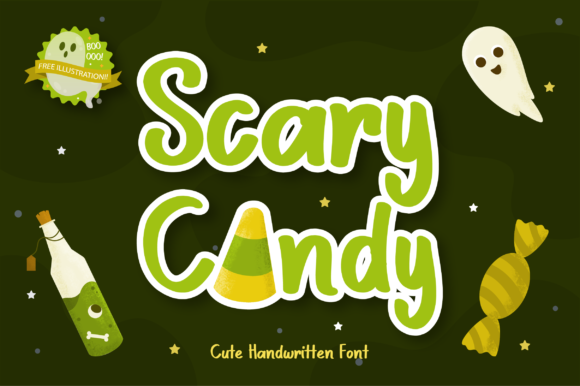
Introducing Scary Candy Font, the ultimate font for adding a touch of whimsy and fun to your creative projects. With its delightful and friendly design, Scary Candy is guaranteed to make your creations stand out from the crowd.
Whether you're designing invitations, greeting cards, posters, or any other type of visual content, Scary Candy is the perfect choice. Its playful and cheerful characters will instantly brighten up your designs and bring a smile to your audience's faces.
Not only is Scary Candy a visual delight, but it's also incredibly versatile. Its unique and eye-catching design makes it suitable for a wide range of projects, from playful and whimsical designs to more formal and sophisticated ones.
**Benefits:**
* Add a touch of whimsy and fun to your creative projects
* Make your designs stand out from the crowd
* Suitable for a wide range of projects, from playful and whimsical to formal and sophisticated
* Bring a smile to your audience's faces